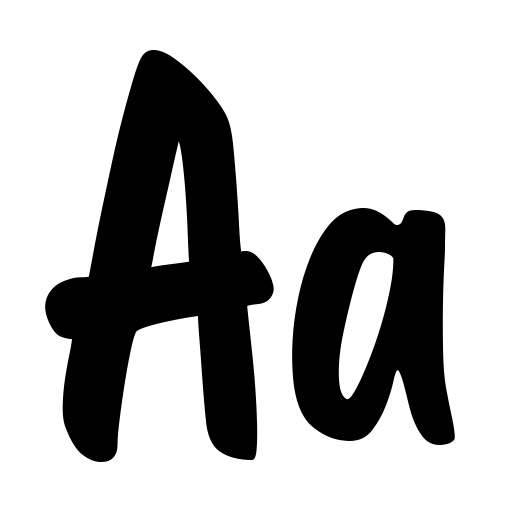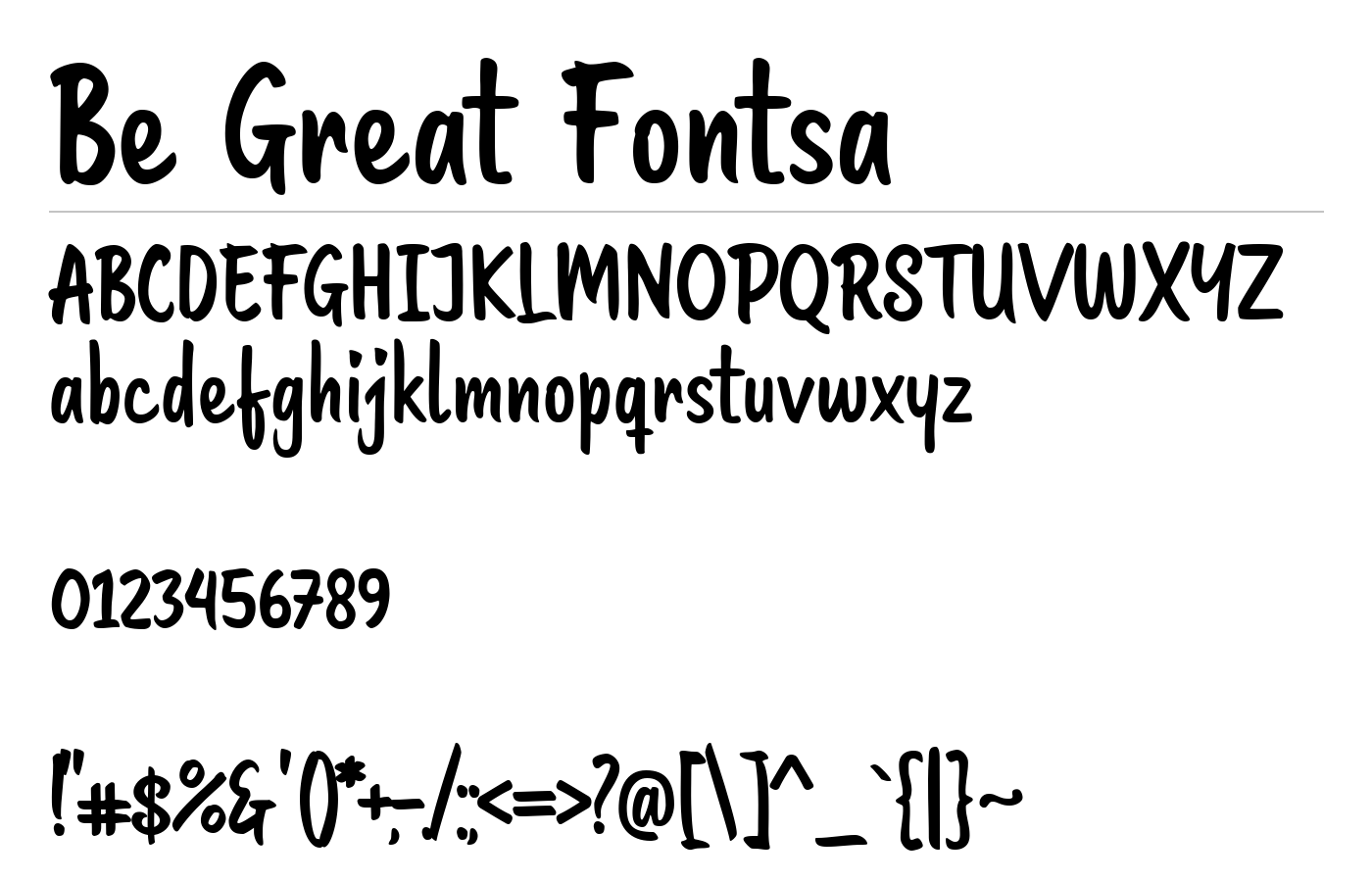
Be Great Fontsa is a playful and casual sans serif font with a hand-drawn feel, featuring slightly irregular, rounded strokes that give it a friendly and approachable personality. Its moderate weight and tall x-height make it highly readable, ideal for designs that want to convey warmth and creativity. This font works great for informal branding, children’s materials, social media graphics, and headlines where an inviting and personal touch is desired.
Be Great Fontsa Font
About Be Great Fontsa Font
| Font family | Be Great Fontsa Font |
| Designer | Ali Hamidi |